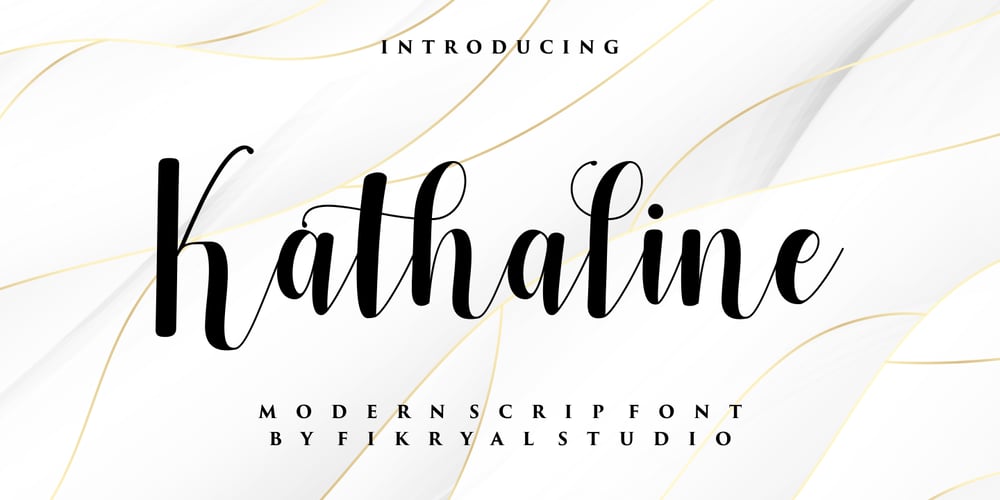
Kathaline Font Family was designed by Muhammad Fikry and published by Fikryal. Kathaline contains 1 styles and family package options. Kathaline is a natural script font perfect for crafting, branding, invitation, stationery, wedding designs, social media posts, advertisements, product packaging, product designs, label, photography, watermark, special events, or anything.Kathaline comes with full set of uppercase and lowercase letters, alternates, ligatures,multilingual symbols, numerals and punctuation.